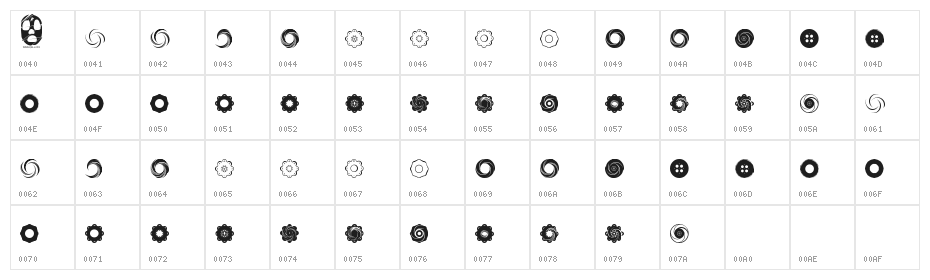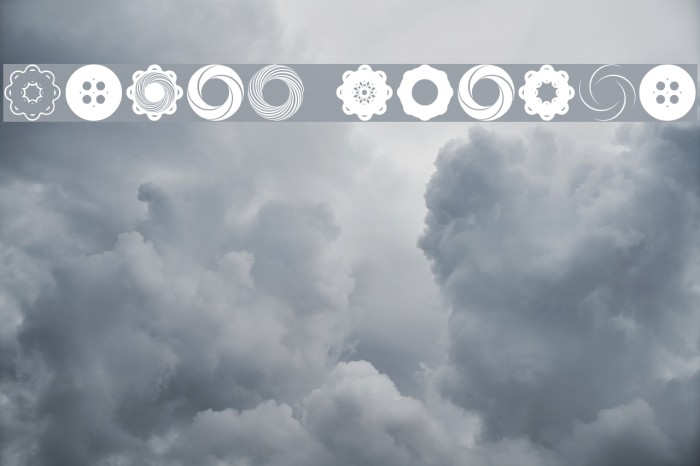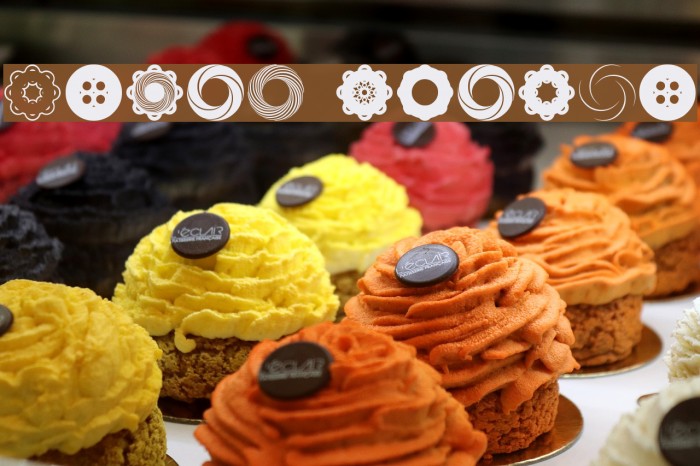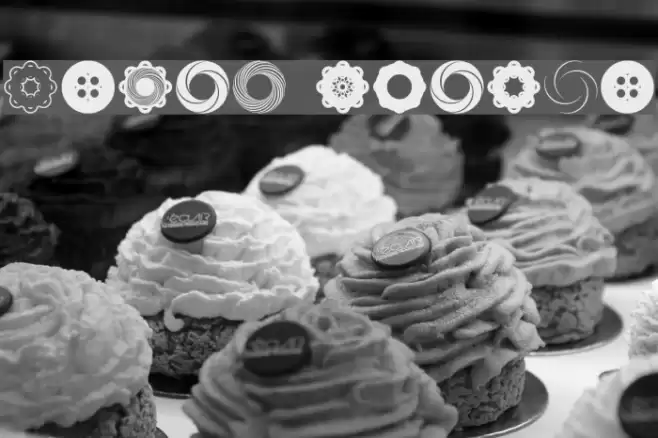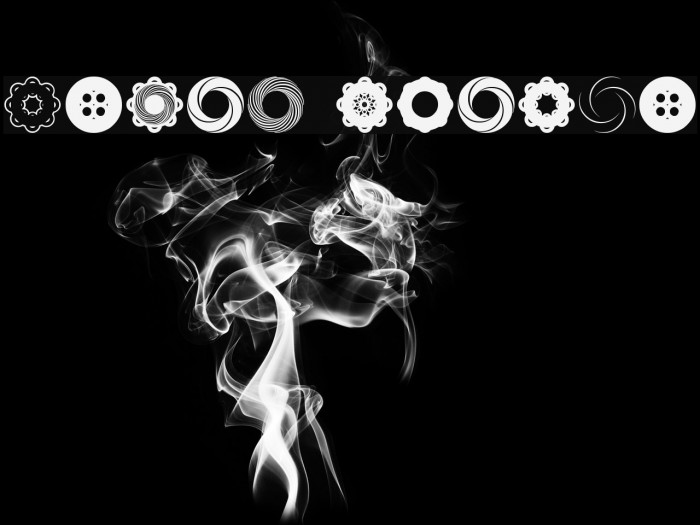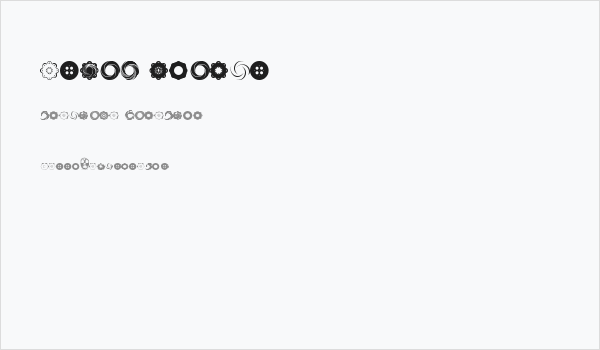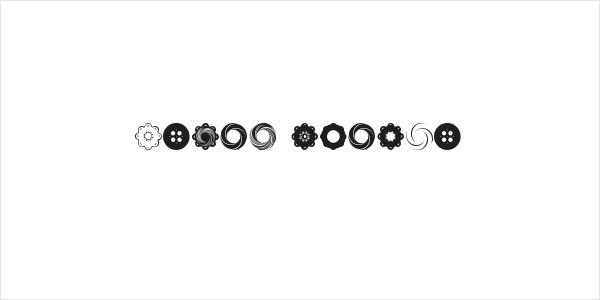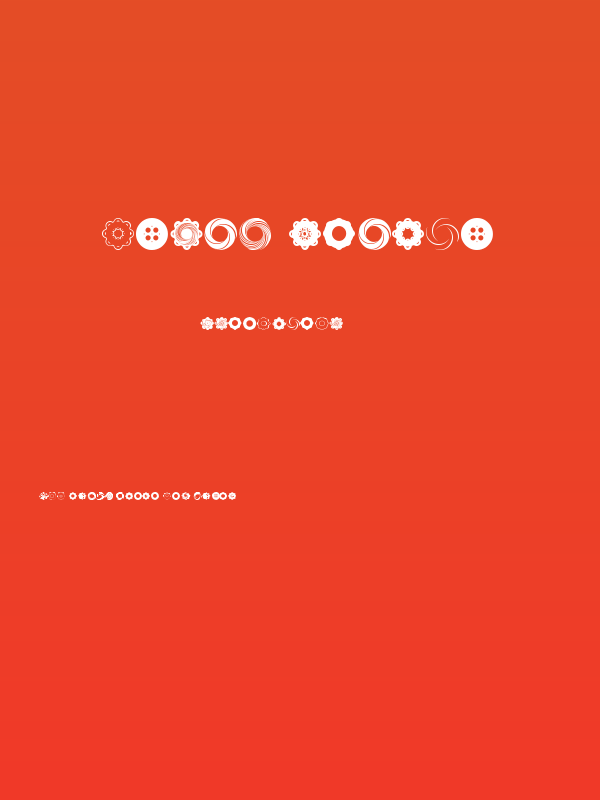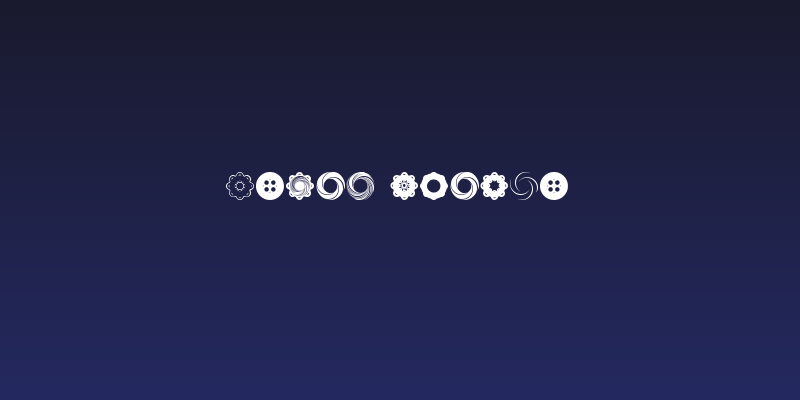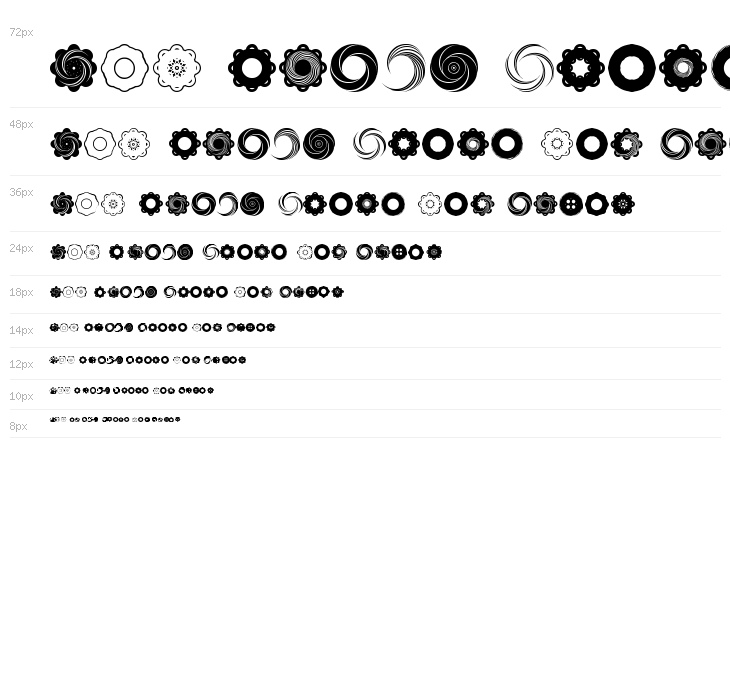
Fluid Spiral Font
Fluid Spiral Description
A decorative display font composed of abstract, spiral, and floral-inspired glyphs, each character represented by a unique geometric or organic shape with varying line thickness and filled or outlined styles.
| Overall Style | Decorative, Abstract, Modern |
| Use Case | Logos, Headlines, Posters, Artistic projects |
| Proposed Projects | Branding, posters, album covers, event invitations, packaging, digital art, and creative headlines. |